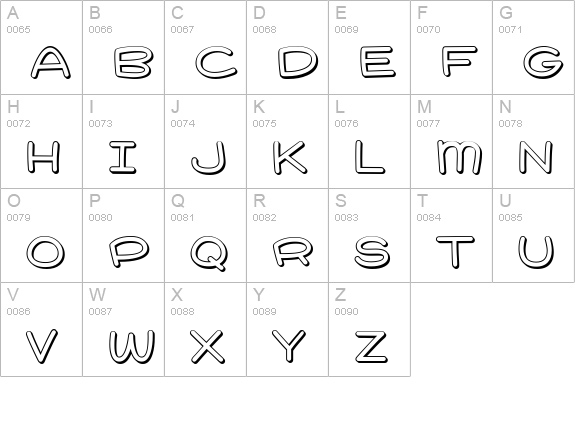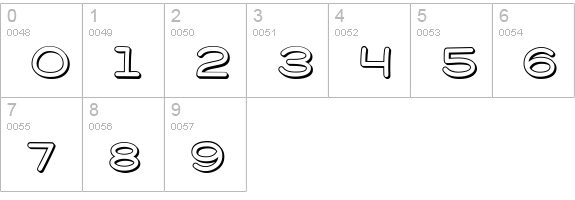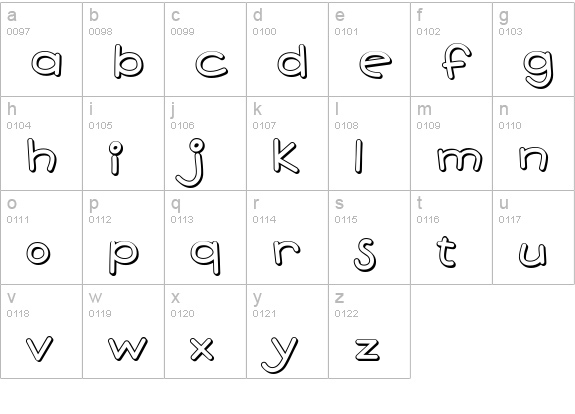
Introducing the captivating Pie Contest BTN Shadow font! This exquisite typeface effortlessly combines elegance and playfulness, making it the perfect choice for any design project that craves a touch of whimsy. With its unique shadowed effect, Pie Contest BTN Shadow adds depth and dimension to your text, creating a visually stunning display. Featuring clean lines and a balanced composition, this font exudes a sense of sophistication and charm. Its carefully crafted letterforms are beautifully emphasized by the subtle shadowing, giving your words a touch of magic. Whether you're designing a logo for a bakery, crafting a menu for a trendy café, or creating eye-catching posters for a pastry competition, Pie Contest BTN Shadow will surely make your text stand out. But that's not all – the best part is, Pie Contest BTN Shadow is freely available to download at FontsMarket.com! This means that you can easily enhance your design projects with this remarkable font without breaking the bank. Its versatility and affordability make it a must-have in every designer's toolkit. So go ahead and give your designs a deliciously creative twist with Pie Contest BTN Shadow! Download it now for free at FontsMarket.com and let your imagination run wild. Unleash the power of this extraordinary font and watch as your designs come to life with a delectable touch of elegance and charm.